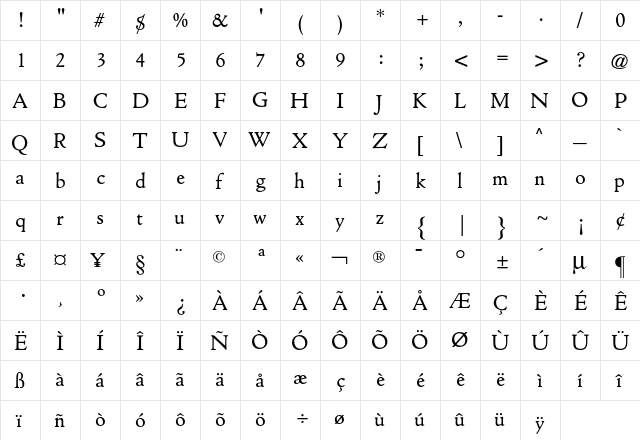
Cloister CG Regular
| Foundry | Miles Inc |
Design Context for Cloister CG Typeface
Cloister CG takes a measured approach to typography — its balanced proportions and neutral character make it a reliable workhorse for both digital and print work.